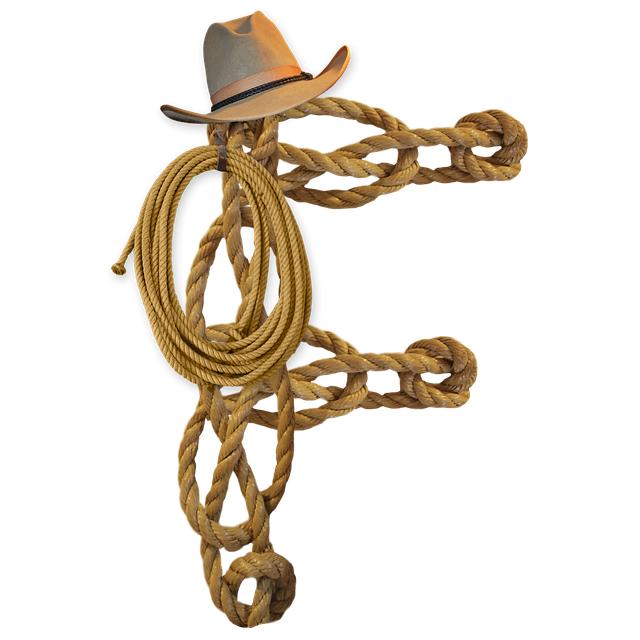
Western Fonts on Canva: Saddle Up for Rugged Typography
Are you tired of using the same old fonts in your design projects? Well, saddle up and get ready to add some rugged flair to your typography with Western fonts on Canva! These bold and distinctive typefaces are perfect for adding a touch of the wild west to your designs. Whether you’re creating a poster for a country music festival or designing a logo for a western-themed business, these fonts are sure to make a statement. So grab your cowboy hat and join us as we explore how to incorporate Western fonts into your Canva designs. Yeehaw!
Choosing the right Western font for your design project
When selecting a Western font for your design project, it’s important to consider the overall style and theme you want to convey. The right font can evoke a sense of nostalgia, adventure, or even a touch of the Old West. One popular choice is Saloon Font, with its rugged appearance and vintage charm. This font is perfect for projects that require a weathered, authentic look.
Another great option is Cowboy Western Font, which features bold, angular lettering that screams Wild West. This font is ideal for projects that need a strong, bold statement. For a more whimsical style, consider Western Wanted Font, which mimics the look of old “Wanted” posters. Whatever your project may be, choosing the right Western font can add a unique touch and bring your design to life.
Exploring rustic and weathered typography options
When it comes to creating a vintage and distressed look in your typography, there are a variety of options to explore. One popular choice is utilizing hand-painted letters to add a rustic touch to your design. Hand-painted typography can give your work a unique and organic feel that is hard to replicate with digital fonts.
Another option to consider is using weathered textures and effects to achieve a worn and aged look in your typography. Distressed textures can add depth and character to your design, making it stand out and grab attention. Experiment with different weathering techniques such as sandpapering, staining, or adding scratches and imperfections to your letters to create a truly authentic rustic feel.
Creating a rugged aesthetic with distressed lettering
Incorporating distressed lettering into your design can help create a rugged and worn aesthetic that adds character and depth to your artwork. By intentionally distressing the lettering, you can evoke a sense of history and authenticity, giving your design a unique and vintage feel. Whether you’re working on a poster, logo, or packaging design, distressed lettering can elevate your project and make a bold statement.
To achieve the rugged aesthetic with distressed lettering, consider experimenting with different techniques such as roughening the edges of the letters, adding cracks or scratches, or fading the text to give it a weathered look. Embrace imperfections and irregularities in your lettering to create a sense of age and wear. Pairing distressed lettering with bold, rugged textures can further enhance the overall aesthetic and make your design stand out. Experiment with different fonts and styles to find the perfect combination that captures the rugged and distressed look you’re going for.
Tips for effectively pairing Western fonts on Canva
When it comes to pairing Western fonts on Canva, there are a few key tips to keep in mind to create visually appealing designs. Firstly, consider combining serif and sans-serif fonts for contrast. Serif fonts, such as Times New Roman or Georgia, can add a classic and elegant touch, while sans-serif fonts like Arial or Helvetica bring a more modern feel to your design. This contrast can help create a harmonious balance in your typography.
Another tip is to pay attention to font weights and styles. Mixing bold and light versions of a font can create visual interest and hierarchy in your text. For example, pairing a bold serif font for headings with a light sans-serif font for body text can make important information stand out while maintaining readability. Experiment with different combinations to see what works best for your design.
Incorporating cowboy-inspired typography in your designs
When it comes to , the key is to embrace the rugged and timeless essence of the Wild West. Utilize fonts that exude a sense of adventure, nostalgia, and authenticity. Opt for typefaces that mimic the hand-drawn lettering found on vintage wanted posters and saloon signs. Think of bold, slab serif fonts with a weathered texture to add character and charm to your designs.
To truly capture the spirit of the Old West, consider utilizing decorative elements such as horseshoes, lassos, and cowboy hats in your typography. These embellishments can be used to enhance the overall theme of your design and evoke a sense of cowboy culture. Experiment with using distressed textures and earthy color palettes to give your typography an aged and weathered look, reminiscent of a time when cowboys roamed the frontier. With the right combination of fonts and design elements, you can transport your audience to a world where the open range meets the dusty streets of a frontier town.
A: Some popular Western fonts on Canva include “Bison”, “Giddyup”, “Rodeo”, and “Rawhide”, each offering a unique Western-inspired look.
Future Outlook
Explore the wild west of typography with Canva’s Western fonts! Saddle up for rugged designs that will make your projects stand out.